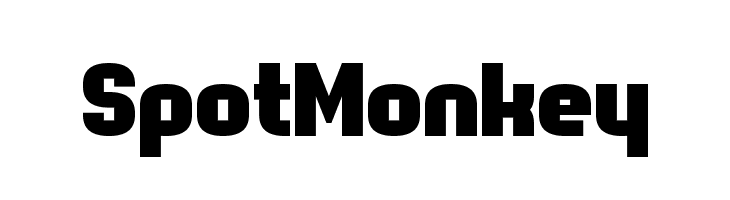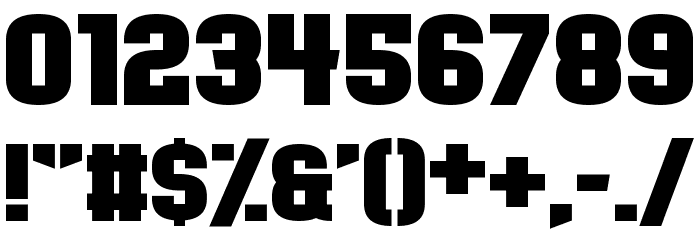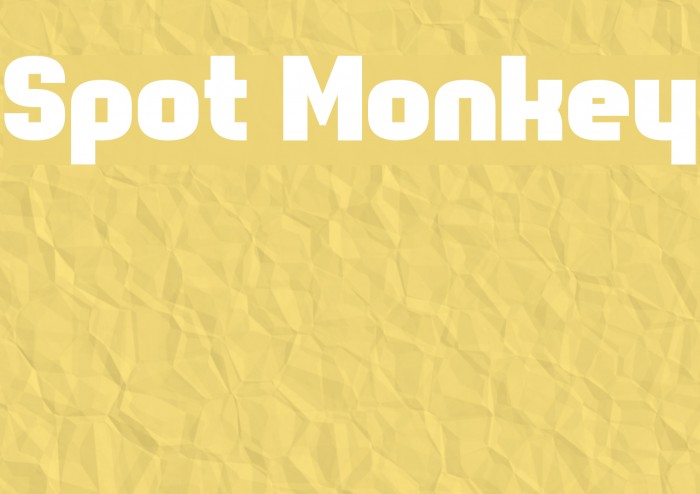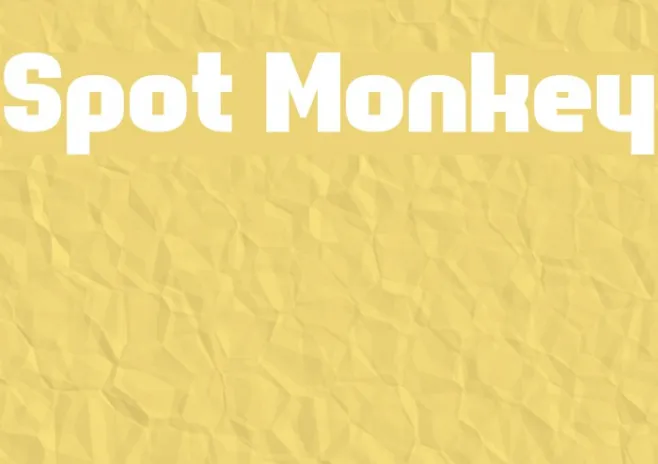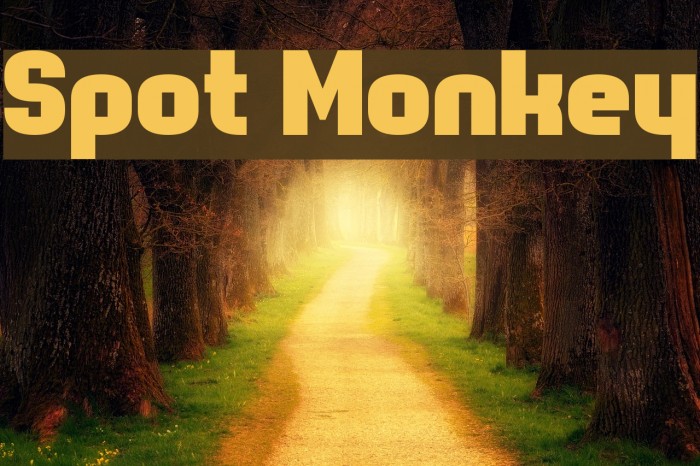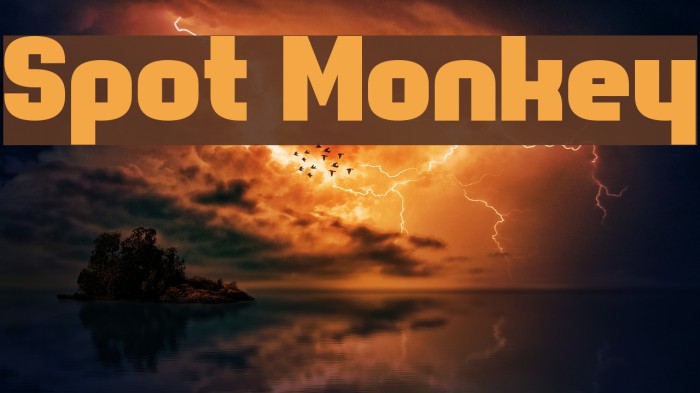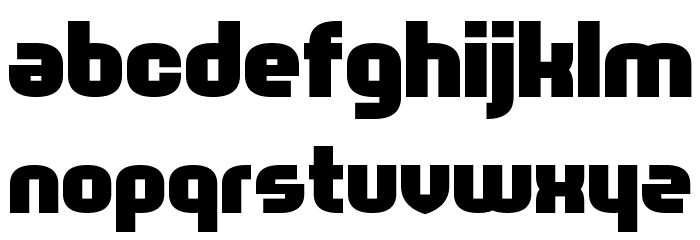
Spot Monkey Font
Spot Monkey Description
This bold and impactful font features thick, blocky letters with a strong presence. The uppercase and lowercase characters maintain a consistent width, creating a uniform appearance. The numbers are equally robust, matching the boldness of the alphabet. Special characters are designed with the same heavy strokes, ensuring they stand out. The font's overall style is modern and assertive, making it suitable for attention-grabbing designs. Its geometric shapes and solid lines convey a sense of stability and strength.
| Proposed Projects | Ideal for headlines, posters, branding, and any design requiring a bold statement. |